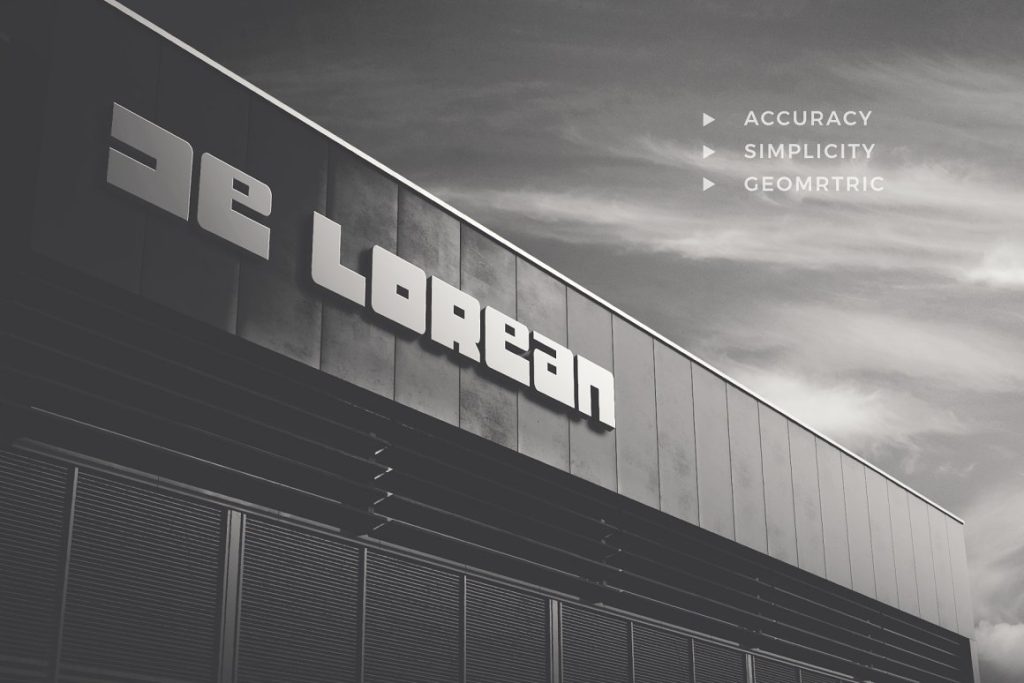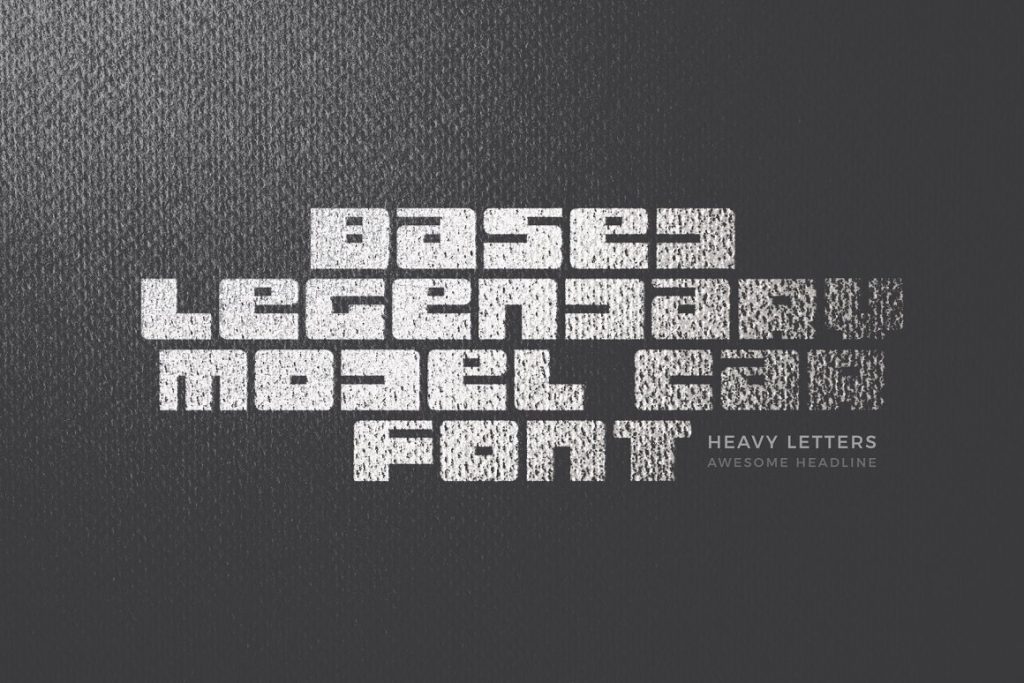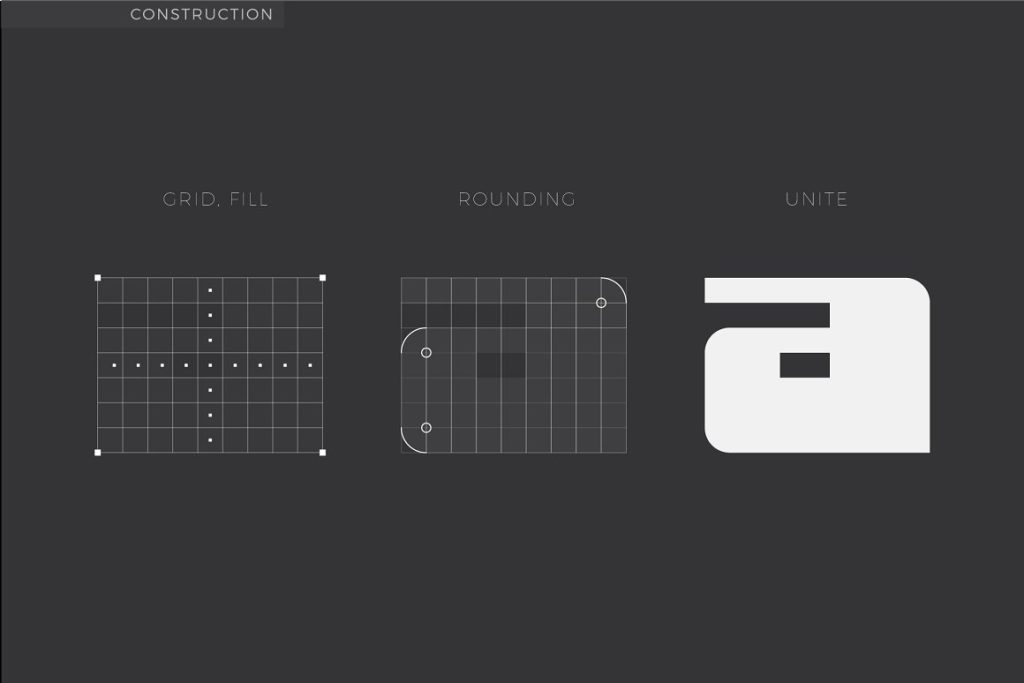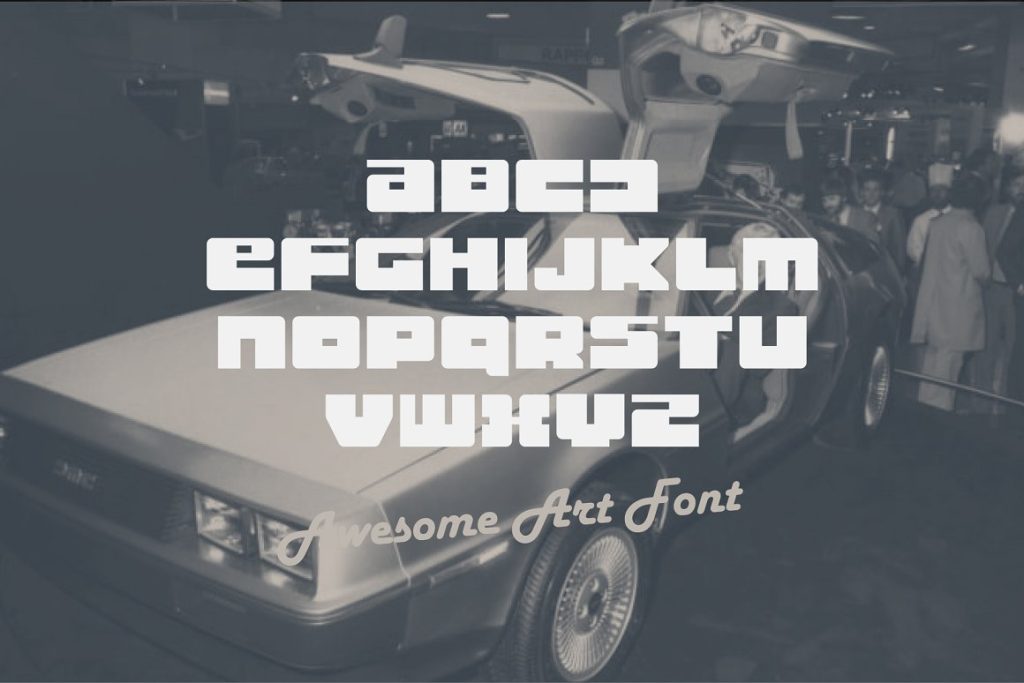
• Lorean Font: Inspired by "Back to the Future" & DeLorean aesthetics
• Modern, geometric, and versatile design
The Classic Vintage Fonts!
Are you a fan of the “Back to the Future” movie and always wondered where you could get a font like that? DealFuel presents to you Lorean Font.
Lorean Font is inspired by the aesthetics of the DeLorean car’s letters. And the result of it is a unique successor, a neat geometric font. At the same time, the more modern and versatile “Lorean” evokes a pleasant feeling, surprising and soothing.